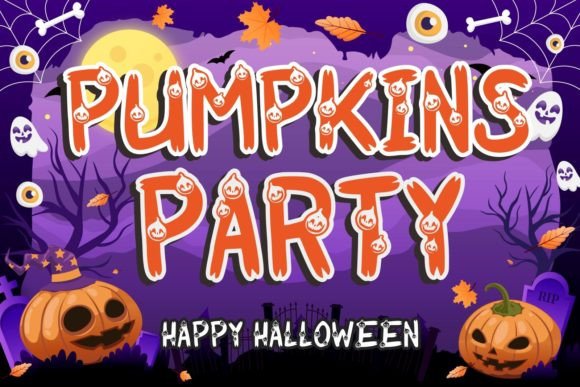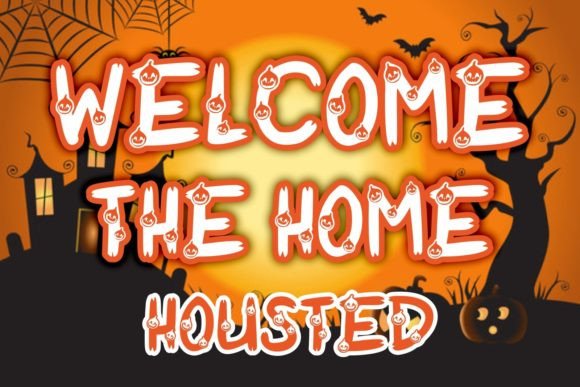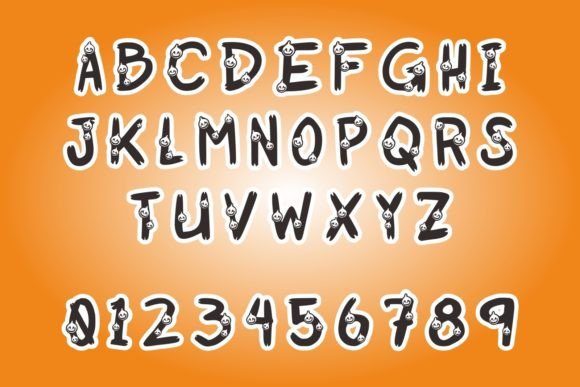
Introduction to Pumpkins Party Font
As a designer, you’ve probably found yourself staring at a blank canvas, desperate for the perfect font to bring your creative project to life. It’s a moment we’ve all been there – the cursor blinks, the clock ticks, and the pressure builds. But what if I told you that the solution lies in a spooky, yet elegant font that’s sure to make your designs stand out? Enter the Pumpkins Party Font, a Halloween-themed display font that’s about to become your new go-to design resource.
With its classic, mysterious vibe, the Pumpkins Party Font is perfect for designers looking to add a touch of whimsy and sophistication to their work. Whether you’re creating a spooky social media post, designing a Halloween-themed logo, or simply need a font for a creative project, this high-quality font is sure to deliver. And the best part? It’s free to download, making it an accessible and valuable resource for designers of all levels.
Key Features of Pumpkins Party Font
- Unique and playful design, perfect for creative projects and fall-themed celebrations.
- Designed to be highly legible, even at small font sizes, making it ideal for invitations, party decorations, and other design resources.
- Perfect for designers, crafters, and anyone looking for a fun and creative design resource for their next project.
Honest Review: Pumpkins Party Font
As a designer, I’m always on the lookout for high-quality design resources to elevate my creative projects. Recently, I stumbled upon the Pumpkins Party Font, and I’m excited to share my honest review with you.
- ✨ The font’s playful, whimsical style is perfect for fall-themed projects or any project that needs a touch of warmth and coziness.
- ⚠️ The font may not be suitable for formal or professional projects due to its casual, party-like vibe.
Overall, I think the Pumpkins Party Font is a great addition to any designer’s toolkit. It’s a fun, creative resource that can add a lot of personality to your projects. Just be aware of its limitations and use it wisely.
Getting the Most Out of Pumpkins Party Font
To get the most out of the Pumpkins Party Font, experiment with different font sizes, colors, and combinations to create unique and eye-catching designs. Consider using the font in conjunction with other design elements, such as images and graphics, to add depth and visual interest.
The Pumpkins Party Font is ideal for use in creative projects, such as party invitations, social media graphics, and promotional materials. Its high-quality design and transparent background make it a versatile design resource that can be used in a variety of contexts.